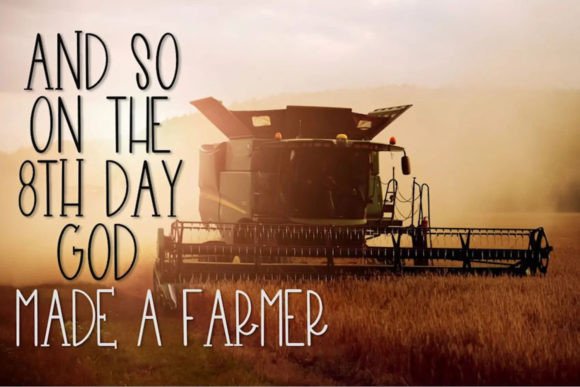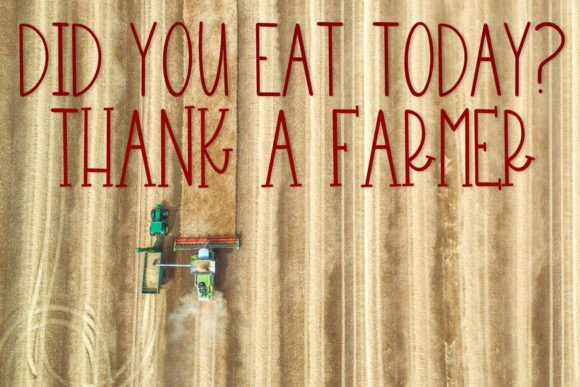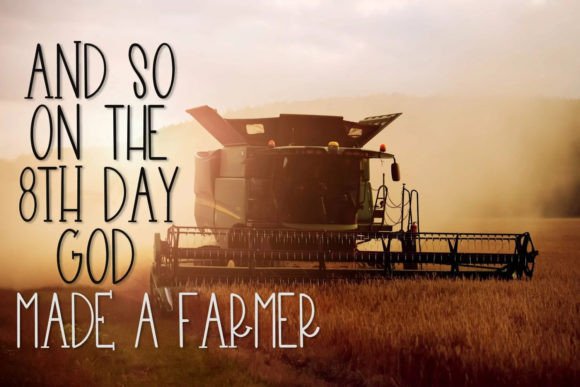
Farm Made Font
About Farm Made Font
“Farm Made” is more than just a font; it’s a fun and friendly handwritten typeface designed to add a delightful touch to your projects. Meticulously crafted, this font is versatile and perfect for various applications, whether it’s on a water bottle, decal, notebook, card, or invitation. Additionally, “Farm Made” comes with optimized nodes, making it ideal for cutting with your cut machine.
The charm of “Farm Made” lies in its fun and friendly handwritten style. Its playful characters and approachable aesthetic make it an excellent choice for projects where you want to infuse a sense of warmth and creativity. Whether used for a water bottle design that radiates charm or an invitation that sets a friendly tone, this font delivers.
Imagine “Farm Made” adding a whimsical touch to a water bottle, where its fun and friendly style enhances the overall appeal. Picture it on a card, creating a lighthearted and approachable sentiment. Envision this font on an invitation, setting the tone for an event with its delightful characters.
One of the standout features of “Farm Made” is its optimization for cut machines. This makes it a practical choice for projects where precision cutting is essential, ensuring that the font translates seamlessly across various mediums.
Whether you’re working on crafting projects or creating personalized invitations, “Farm Made” offers a fun and friendly handwritten typeface that adapts to your creative vision. It’s not just a font; it’s a creative tool that brings a sense of playfulness to your designs. Let “Farm Made” be the delightful script that transforms your projects into visually appealing and memorable works of art.